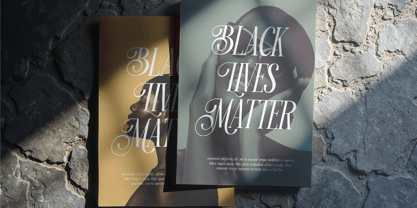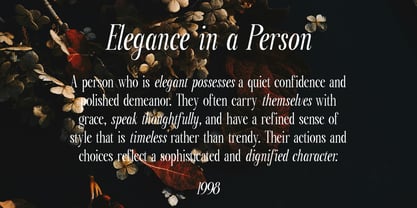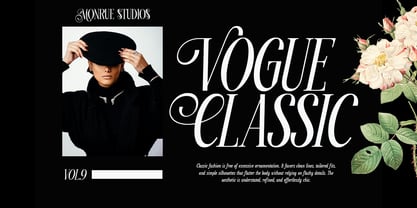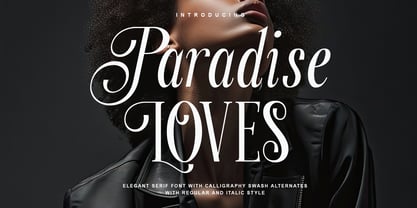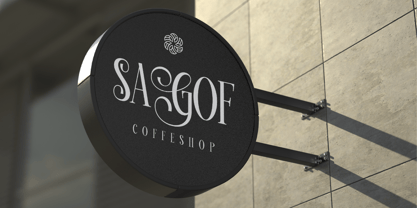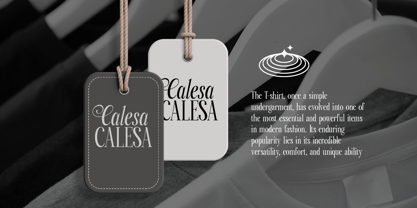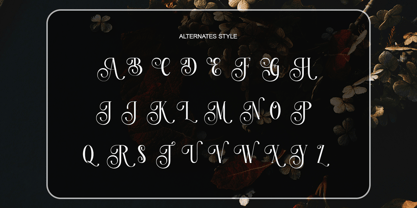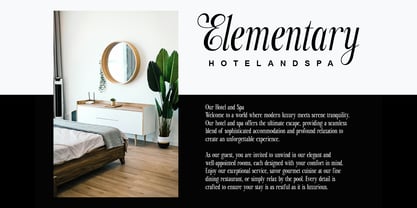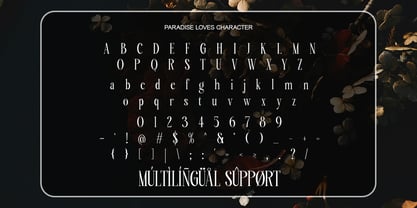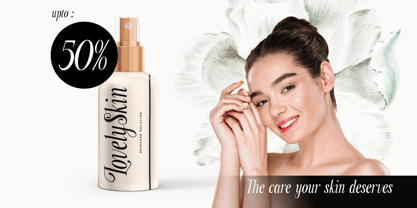
Paradise Loves
The Paradise Loves Font Family was designed by Yogiswhara Dio Prakoso Riadi and published by RagamKata. Paradise Loves contains 2 styles and family package options. More about this family
Paradise Loves is elegant serif font with calligraphy alternates. Carefully designed with consistent strokes, with beautiful italic version offers a minimalist, luxurious and classy feel. Paradise Loves is inspired by classical calligraphy. This font is perfect for anything that needs an elegant, beautiful, feminine, and dramatic look. You can apply this font to weddings, invitations, logotypes, romantic quotes, labels, and branding. File Included : - Paradise Loves - Paradise Loves Italic - Stylistic Alternates - Multilingual Support Thanks, have a wonderful day